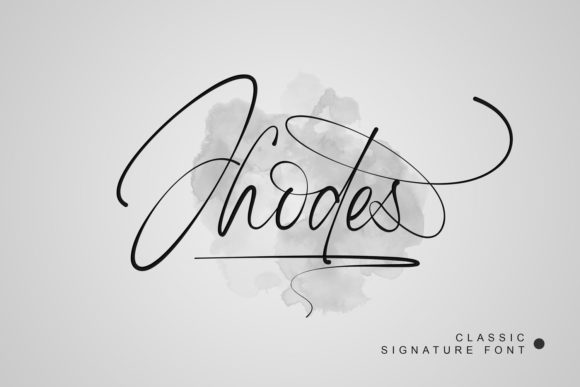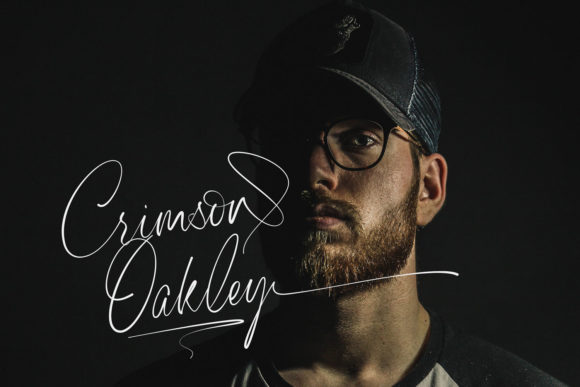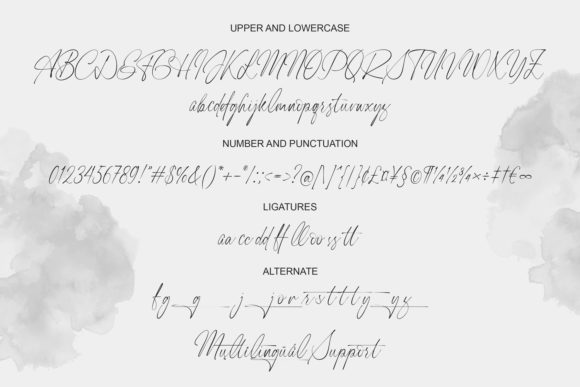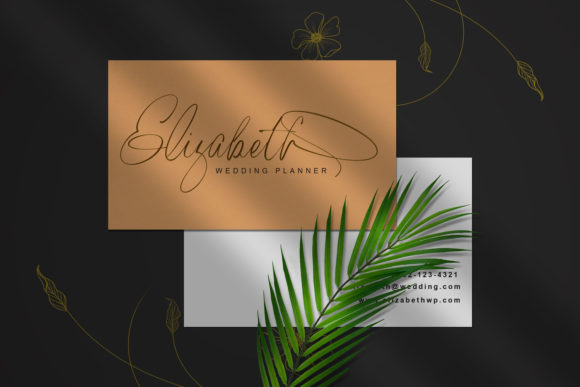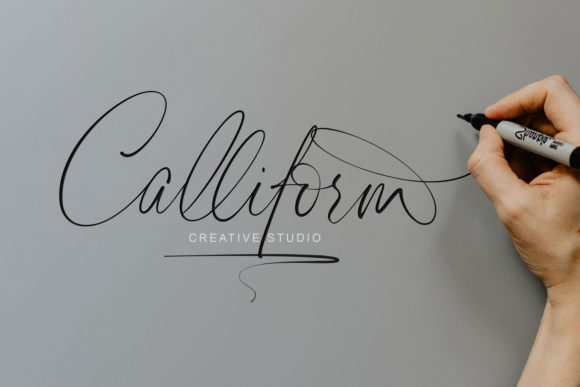
About Jhodes Font
Jhodes is a thin lettered and graceful script font. Trendy and stylish, this font will elevate each of your creations. It is PUA encoded which means you can access all of the glyphs and swashes with ease!